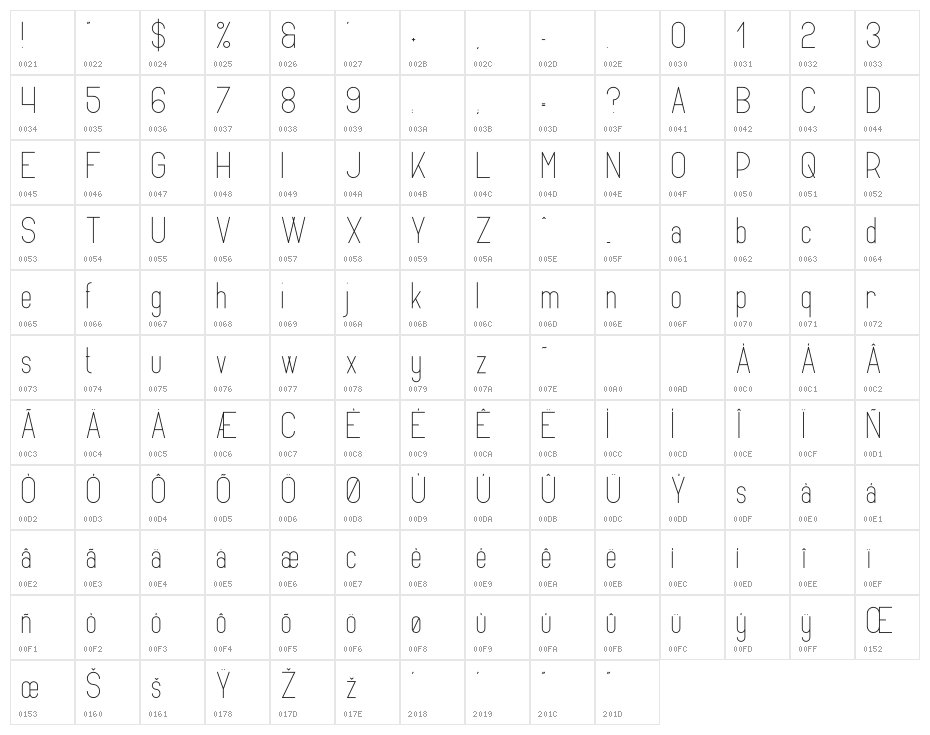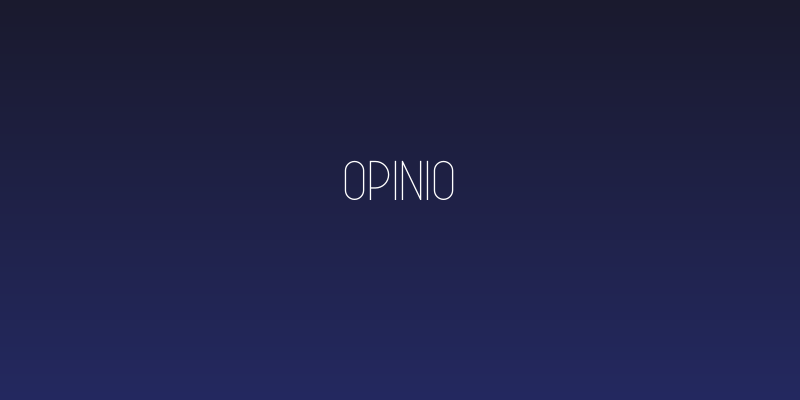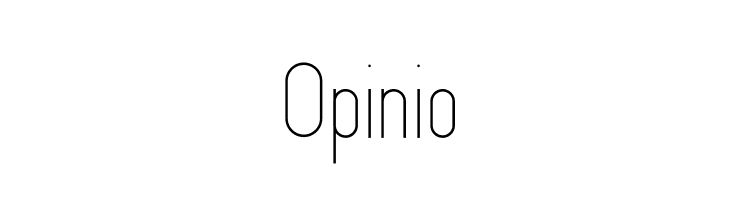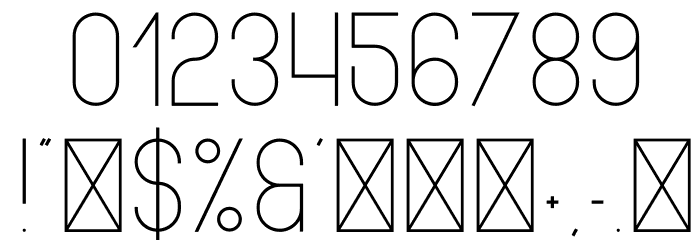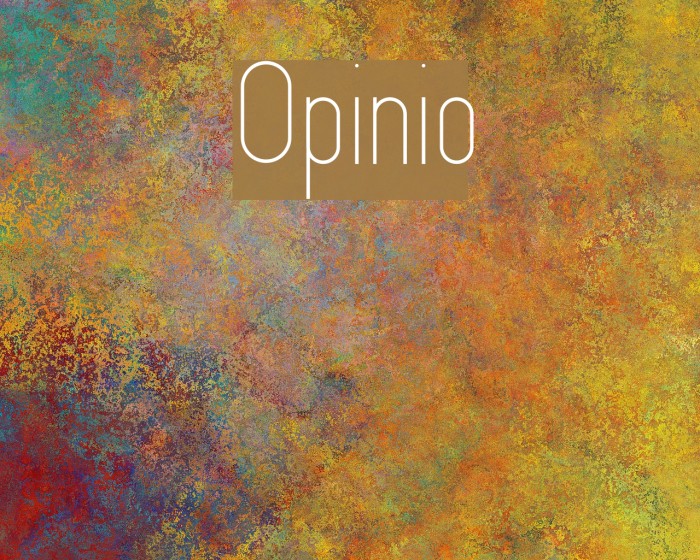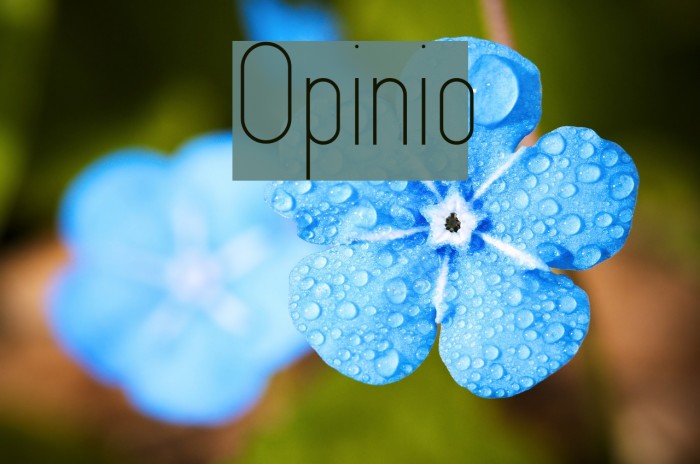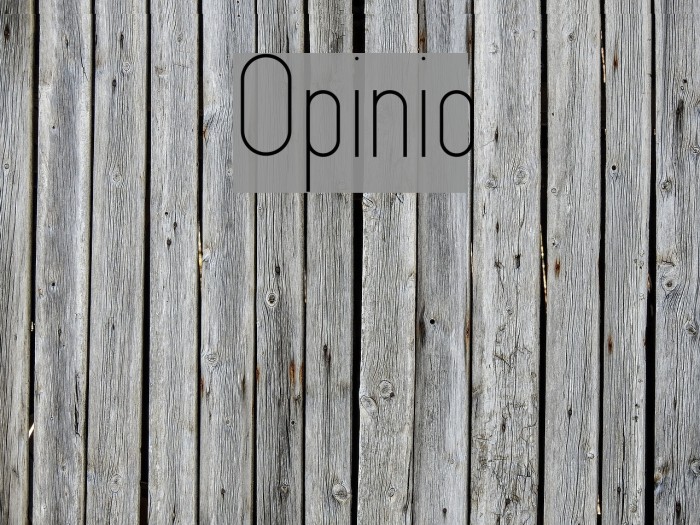
Opinio Font
Opinio Description
This typeface features a clean, geometric design with a modern aesthetic. The characters are constructed with thin, uniform strokes, giving it a sleek and minimalist appearance. The uppercase letters are tall and narrow, while the lowercase letters maintain a consistent height, enhancing readability. The numerals are similarly styled, aligning well with the overall geometric theme. Special characters are included, maintaining the same thin stroke weight. This font is versatile, suitable for a range of design applications where a contemporary and uncluttered look is desired.
| Use Case | Headlines, Logos, Editorial design |
| Proposed Projects | Ideal for branding, editorial design, web design, and advertising where a clean, modern look is desired. |